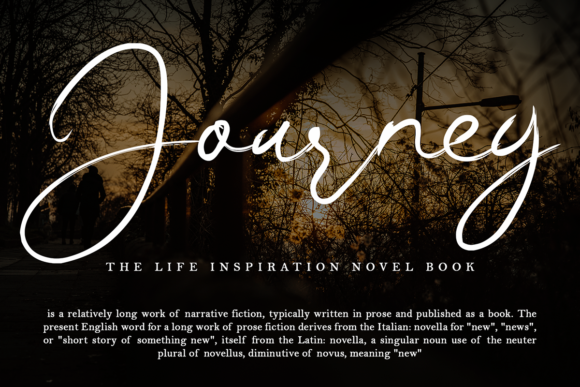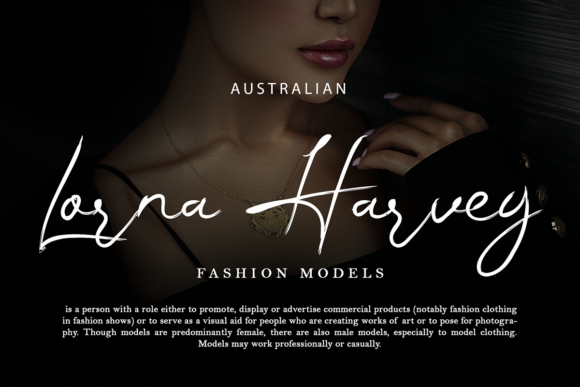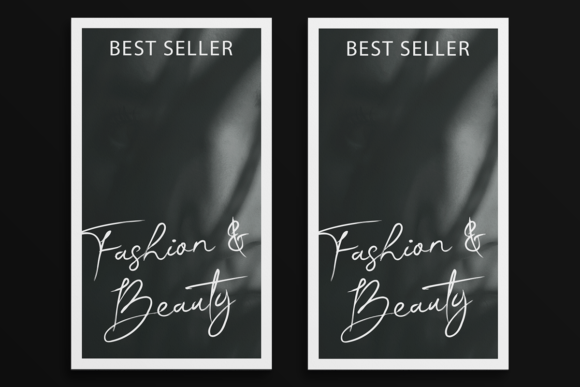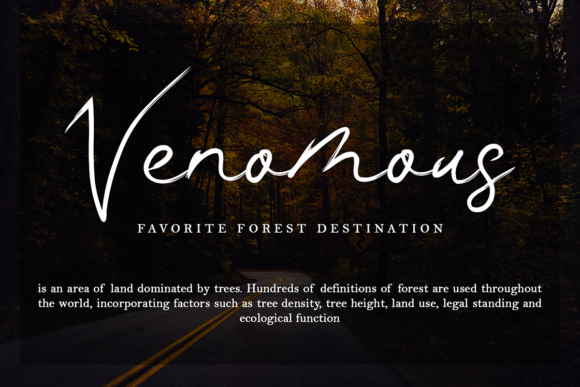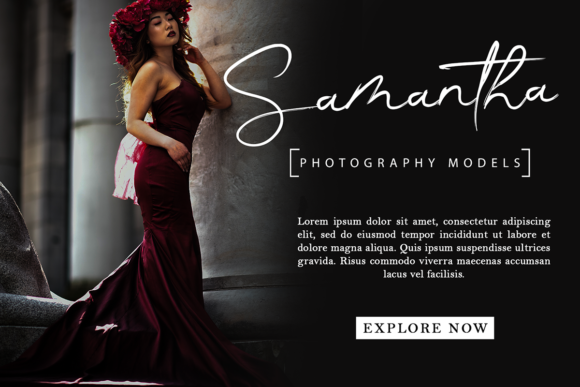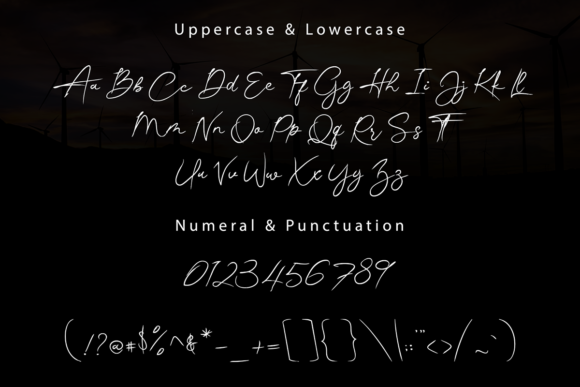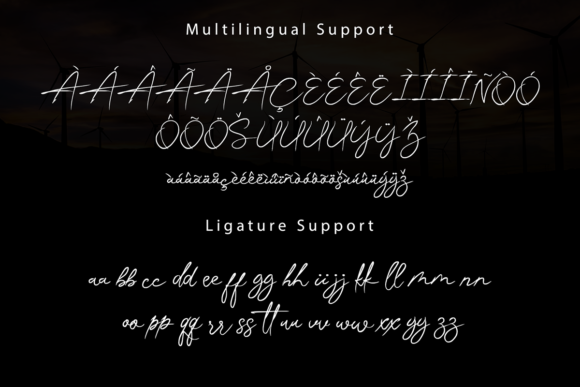
Windmill Font
About Windmill Font
Windmill is a modern handwritten font. A collection of letters and numbers suitable for your creative projects. It is also great for Logotype, Branding Design, Logo Design, Digital Lettering Arts, T-Shirt/Apparel, Poster, Magazine, Signs, Advertising Design, and any other design needs.